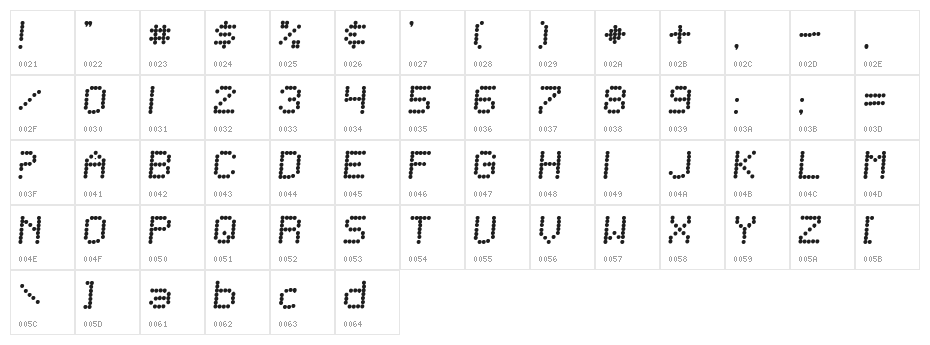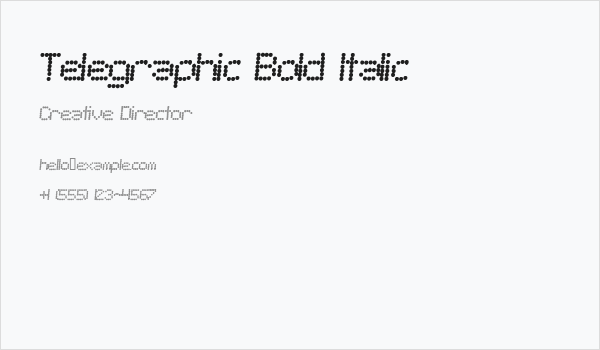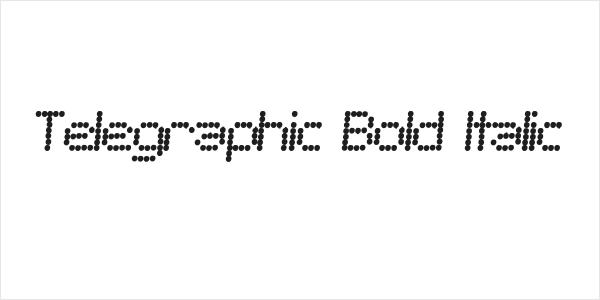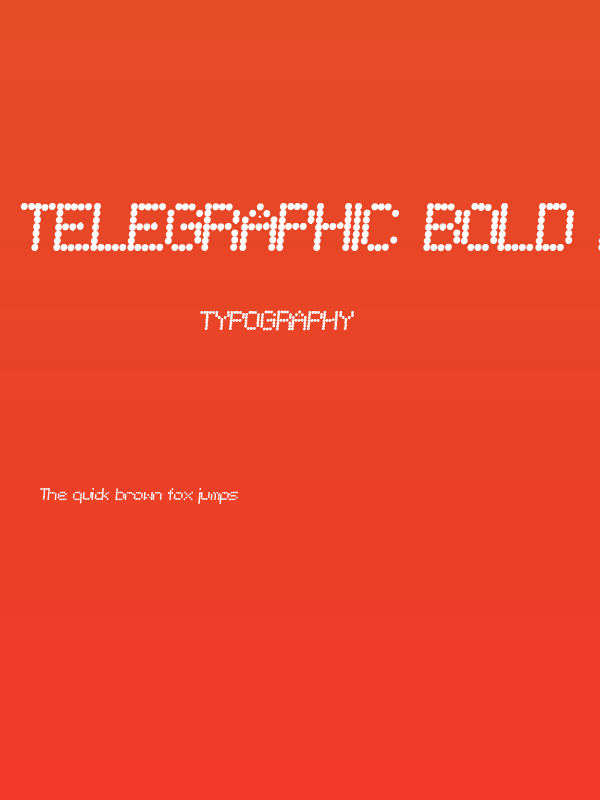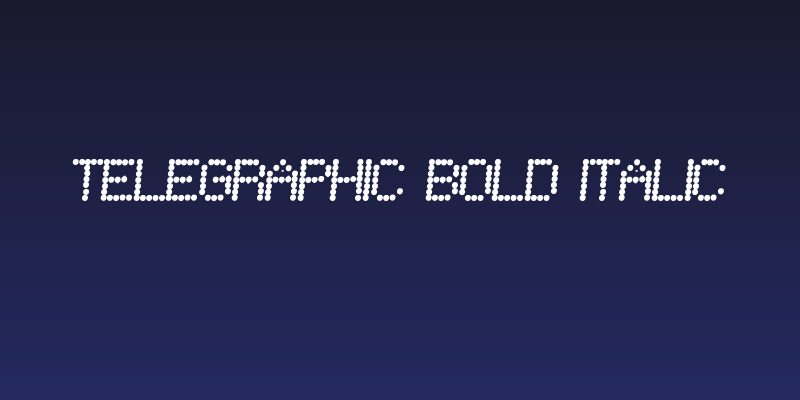
Telegraphic Bold Italic Font
Telegraphic Bold Italic Description
This font features a unique dot matrix style, where each character is composed of a series of evenly spaced dots. The design gives it a digital, retro appearance reminiscent of early electronic displays or telegraph machines. The characters are bold and italicized, adding a dynamic and modern twist to the classic dot matrix look. This font is highly legible and maintains a consistent structure across all characters, making it suitable for both decorative and functional purposes.
| Overall Style | Modern, Retro |
| Proposed Projects | Ideal for digital-themed designs, retro posters, tech-related branding, and creative projects that require a distinctive, eye-catching font. |